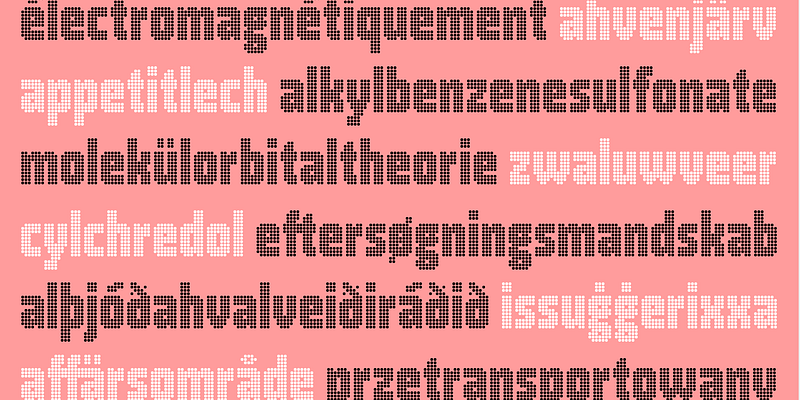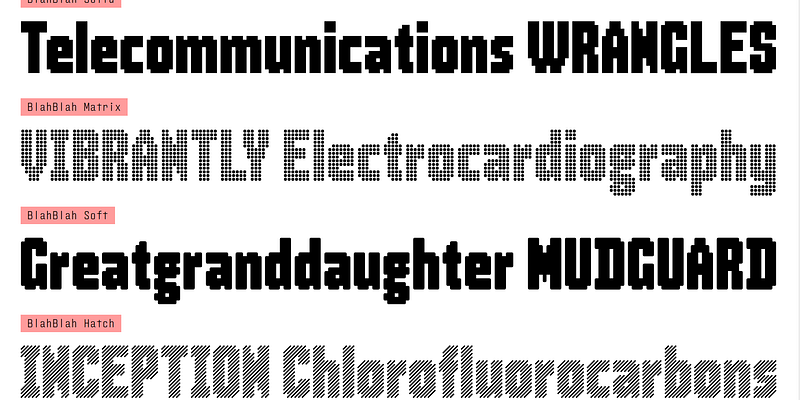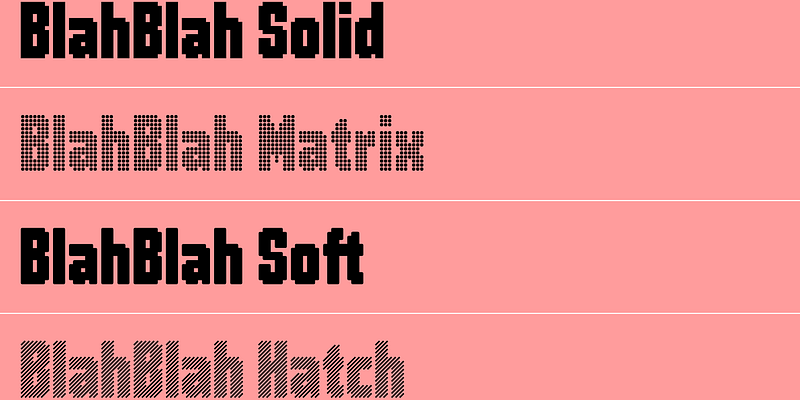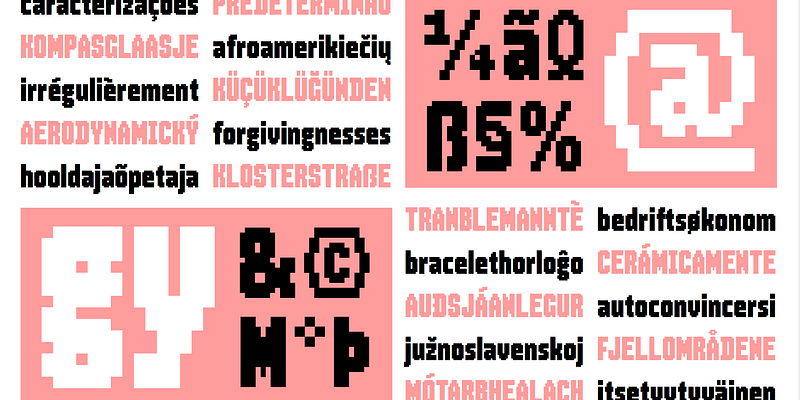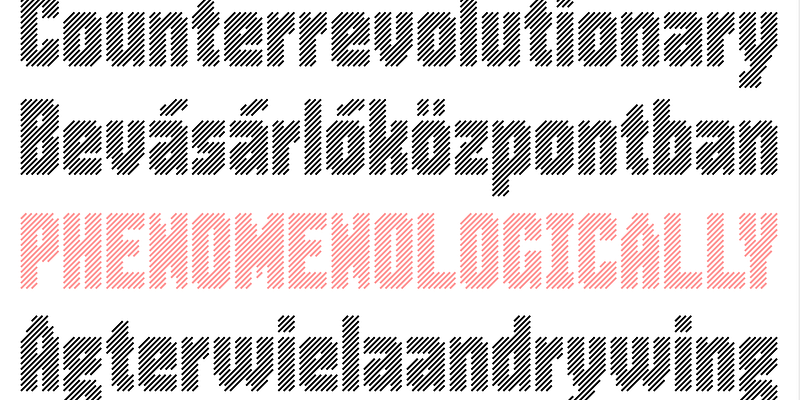
The American Gothic style of sans serif was invented single-handedly by Morris Fuller Benton. Benton headed the design department at American Type Founders (ATF) and was their chief type designer in the early twentieth century. Pieter took a no-nonsense look at the condensed version of this enduring typographic genre and rebuilt it brick by brick – or should we say pixel by pixel? – to create BlahBlah. Challenging Huey Lewis’s philosophical theorem “It’s hip to be square,” Pieter broke out of the pixels’ angular confines with additional variants. He cut some corners (literally, not figuratively) for BlahBlah Soft, and rendered the letterforms with dots and 45-degree lines for BlahBlah Matrix and BlahBlah Hatch, respectively. But enough blahblah, take this fun face for a spin. BlahBlah comes in four styles and supports Latin Extended.